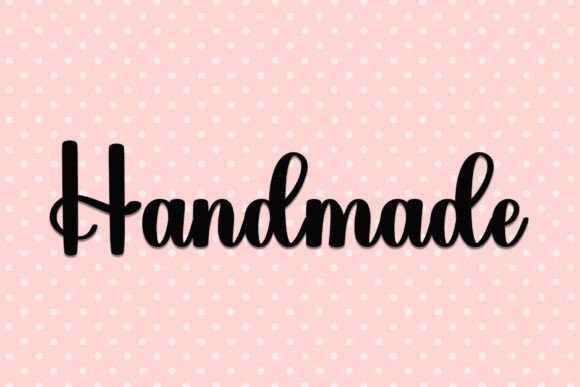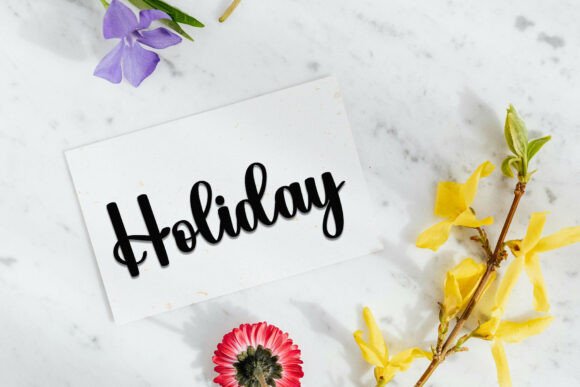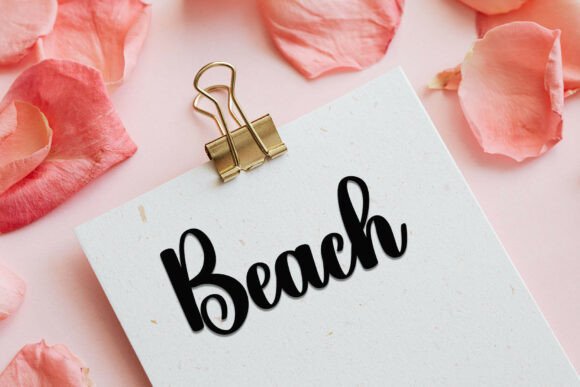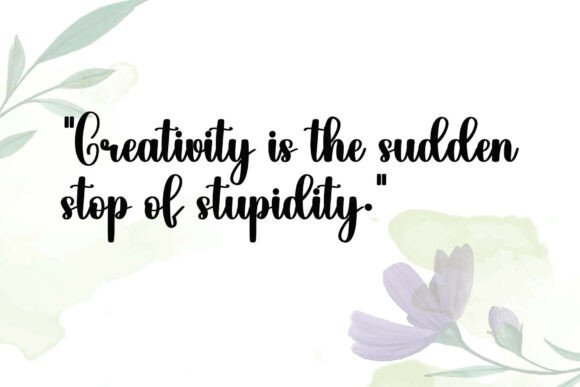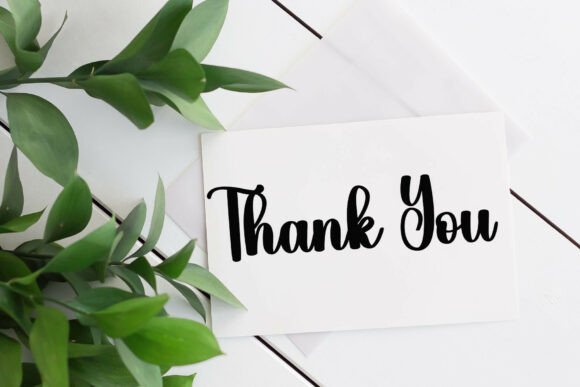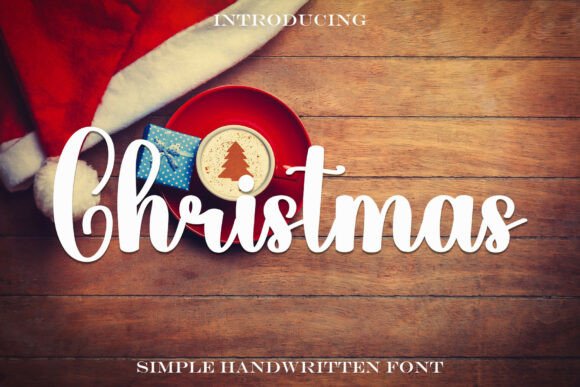
Introducing Christmas Font: The Perfect Handwritten Style for Your Holiday Projects
Are you looking for a font that captures the essence of the holiday season? Look no further than Christmas Font, a beautiful handwritten font with a natural, flowing style. This elegant cursive font is perfect for adding a personal and stylish touch to your invitations, logos, social media posts, and more.
What Makes Christmas Font So Special?
Christmas Font is a unique and versatile font that is sure to make your holiday projects stand out. Its natural, handwritten style gives it a warm and inviting feel that’s perfect for the holiday season. The font’s elegant cursive writing style is reminiscent of traditional calligraphy, but with a modern twist that makes it perfect for contemporary designs.
One of the things that sets Christmas Font apart is its ability to add a personal touch to any design. Whether you’re creating invitations for a holiday party, designing a logo for a seasonal business, or simply want to add some festive flair to your social media posts, this font is sure to impress.
Features of Christmas Font
So, what makes Christmas Font so special? Here are just a few of its key features:
• Natural, handwritten style: Christmas Font has a warm and inviting feel that’s perfect for the holiday season.
• Elegant cursive writing: The font’s elegant cursive style is reminiscent of traditional calligraphy, but with a modern twist.
• Versatile: Christmas Font can be used for a wide range of projects, from invitations and logos to social media posts and more.
Uses for Christmas Font
So, how can you use Christmas Font in your holiday projects? Here are just a few ideas to get you started:
• Invitations: Use Christmas Font to create beautiful, personalized invitations for your holiday party or event.
• Logos: Add a touch of elegance to your seasonal business logo with Christmas Font.
• Social media posts: Use Christmas Font to add some festive flair to your holiday social media posts.
• Stationery: Create beautiful, personalized stationery with Christmas Font.
• Crafting projects: Use Christmas Font to add a personal touch to your holiday crafting projects, such as handmade cards or gift tags.
Tips for Using Christmas Font
Here are a few tips for getting the most out of Christmas Font:
• Experiment with different colors: Christmas Font looks great in a variety of colors, so don’t be afraid to experiment and find the perfect hue for your project.
• Use it sparingly: While Christmas Font is beautiful, it can be overwhelming if used too much. Use it sparingly to add a touch of elegance to your design.
• Pair it with other fonts: Christmas Font pairs well with a variety of other fonts, so don’t be afraid to experiment and find the perfect combination for your project.
Christmas Font is a beautiful handwritten font that’s perfect for adding a personal and stylish touch to your holiday projects. With its natural, flowing style and elegant cursive writing, it’s sure to make your designs stand out. Whether you’re a designer or crafter, Christmas Font is a must-have for the holiday season.